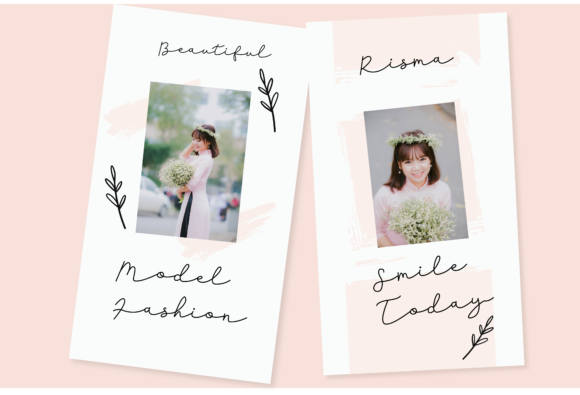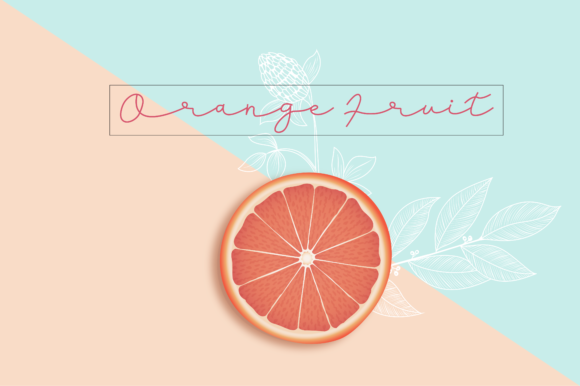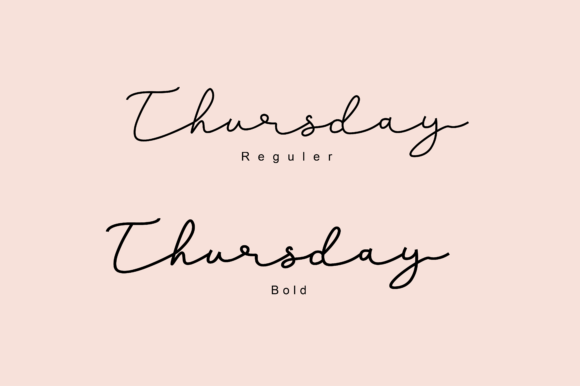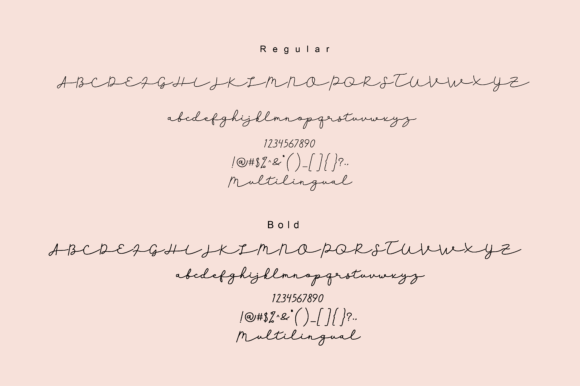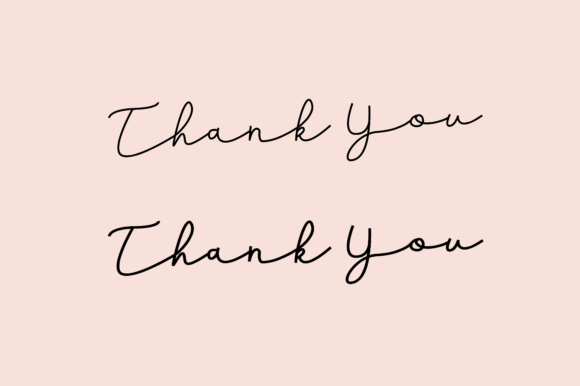
Introduction to Herliana Font
Have you ever been working on a design project, pouring your heart and soul into it, only to feel like something’s missing? You know, that elusive spark that takes your creative idea from good to great? For designers, this moment is all too familiar, and it’s exactly what makes discovering a new design resource so exciting. Today, we’re shining the spotlight on the Herliana Font, a beautifully crafted typeface that’s sure to add a romantic twist to any project.
With its stunning handcrafted strokes, the Herliana Font is the perfect addition to any design arsenal. Whether you’re working on a wedding invitation, a fashion blog, or a lifestyle magazine, this versatile font is sure to elevate your creative project to the next level. And the best part? It’s available for free download, making it a valuable resource for designers of all levels.
What sets the Herliana Font apart from other design resources is its high-quality, transparent background, making it perfect for any design application. So, if you’re looking to add a touch of elegance and sophistication to your next creative project, look no further than the Herliana Font.
Key Features of Herliana Font
- High-quality font with a transparent background, ideal for creative projects that require a clean and minimalist design.
- Herliana Font comes in three different weights: Light, Regular, and Bold, providing flexibility for various design needs.
- Supports multiple languages, including English, making it a versatile font for international design projects.
- Designed with a high resolution of 300 DPI, ensuring crisp and clear text display in both digital and print materials.
- Perfect for use in logos, branding, typography, and other design elements where a clean and modern font is required.
Honest Review: Herliana Font
As a designer, I’m always on the lookout for high-quality design resources to enhance my creative projects. The Herliana Font caught my eye due to its elegant and sophisticated look.
- ✨ The font has a wide range of weights and styles, making it versatile for various design applications.
- ✨ The transparent background option allows for seamless integration with other design elements.
- ⚠️ The font may not be ideal for highly condensed or dense text, as it can become difficult to read.
- ⚠️ Some users may find the font’s style too ornate or overpowering for certain design projects.
Overall, I’m impressed with the Herliana Font. Its high quality and versatility make it a valuable design resource. While it may have some limitations, it’s a great choice for designers looking for a sophisticated and elegant font for their creative projects.
The Herliana Font is ideal for creative projects such as logos, branding materials, and typography-based designs. Its high-quality design makes it a popular choice among designers and artists.